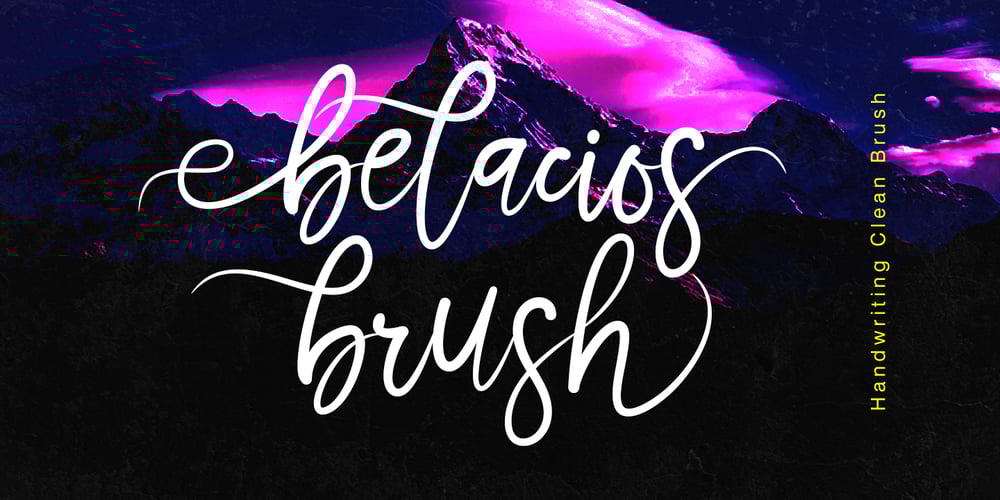
Belacios Brush
Belacios Brush font
Belacios Brush Font Family was designed by Yusliana M Isa and published by Gian Studio. Belacios Brush contains 1 styles and family package options. Belacios Brush is a type of font that has distinctive characteristics. This is a font designed in a casual handwriting style and reads well. Its characteristic is the natural-looking strokes, resembling paint brush strokes, which give a warm and friendly impression. This font is often used for projects that want to create a relaxed, natural, and personal atmosphere, such as logo designs, greeting cards, posters, and various other promotional materials. The advantages of this font are its ease of use and the beauty of its unique letter shapes.Thank you for your purchase!Designer: YuslianaPublisher: Giant StudioFoundry: Gian StudioDesign Owner: Gian Studio